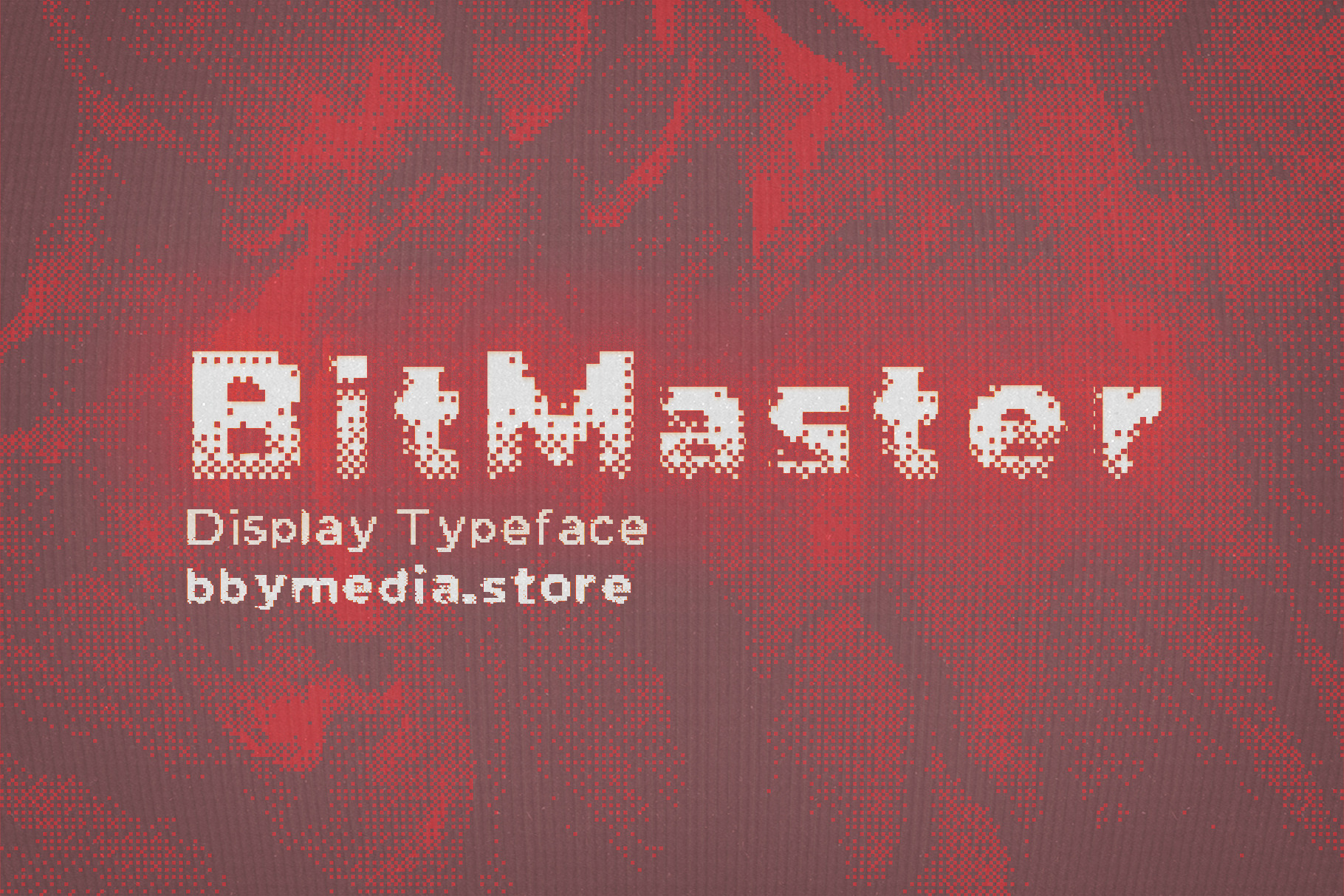
Bit Master Font
Bit Master Font#1 - part of the Digital Maximalism series. A weird and unconventional font, perfect for quirky designs, eye-popping titles, and for any kind of eccentric experiments.